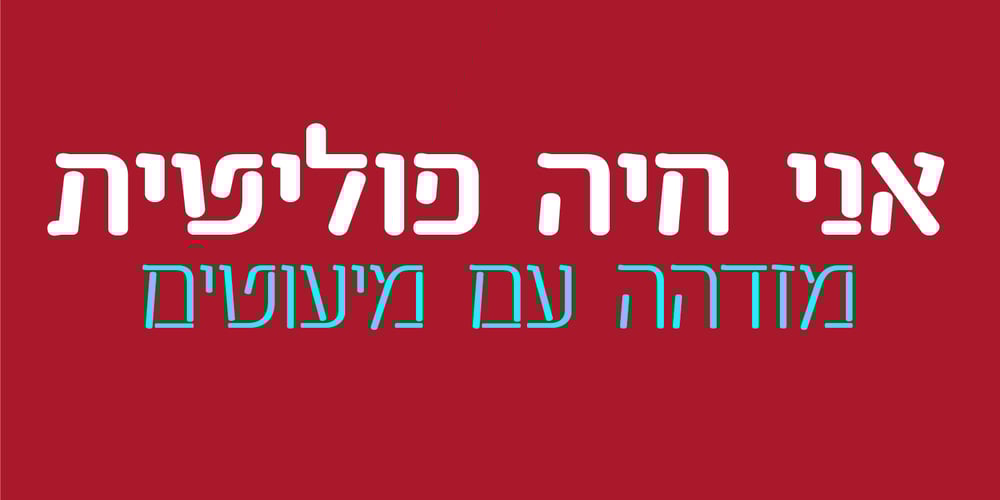
Ketamine One MF
Ketamine One MF font
Ketamine One MF Font Family was designed by Daniel Levy and published by Masterfont. Ketamine One MF contains 3 styles and family package options. A practical font family with 3 weights for all your day by day design needs: headlines, signage etc.An extended sans serif typeface with rounded endings that provides unique industrial appearance without losing legibility.